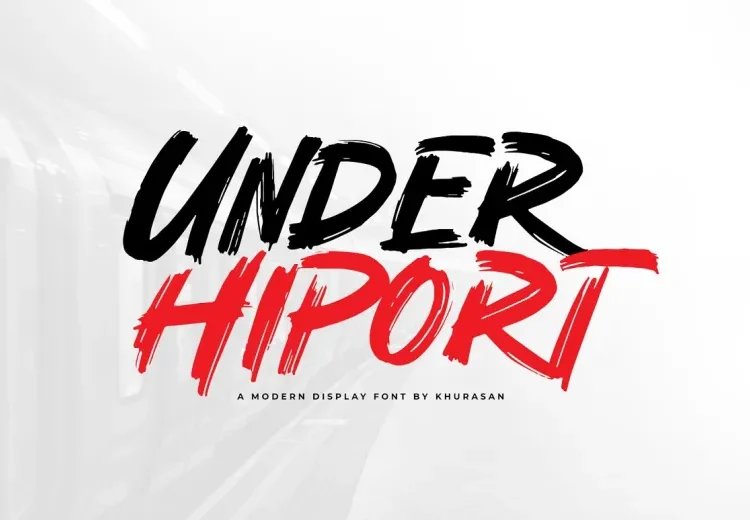
Under Hiport Font
Under Hiport Font is a bold and expressive brush typeface that commands attention with its dynamic strokes and handcrafted appeal. Ideal for creating impactful posters, logos, book and magazine covers, banners, and more, this versatile font effortlessly enhances your creative projects. Its lively handwritten style adds personality and flair, making it perfect for designs that aim to stand out.
Whether used as the focal point or paired with other design elements, Under Hiport brings a unique charm that amplifies visual interest. Let this energetic font breathe life into your artistic ideas!